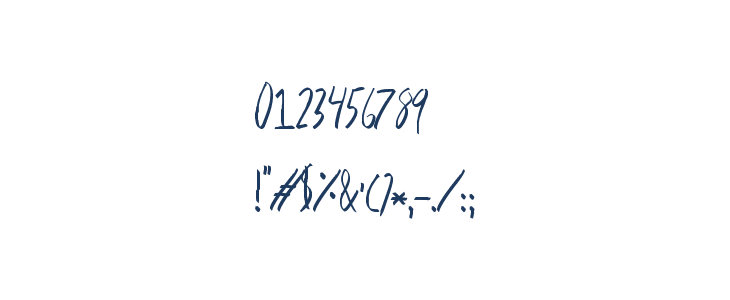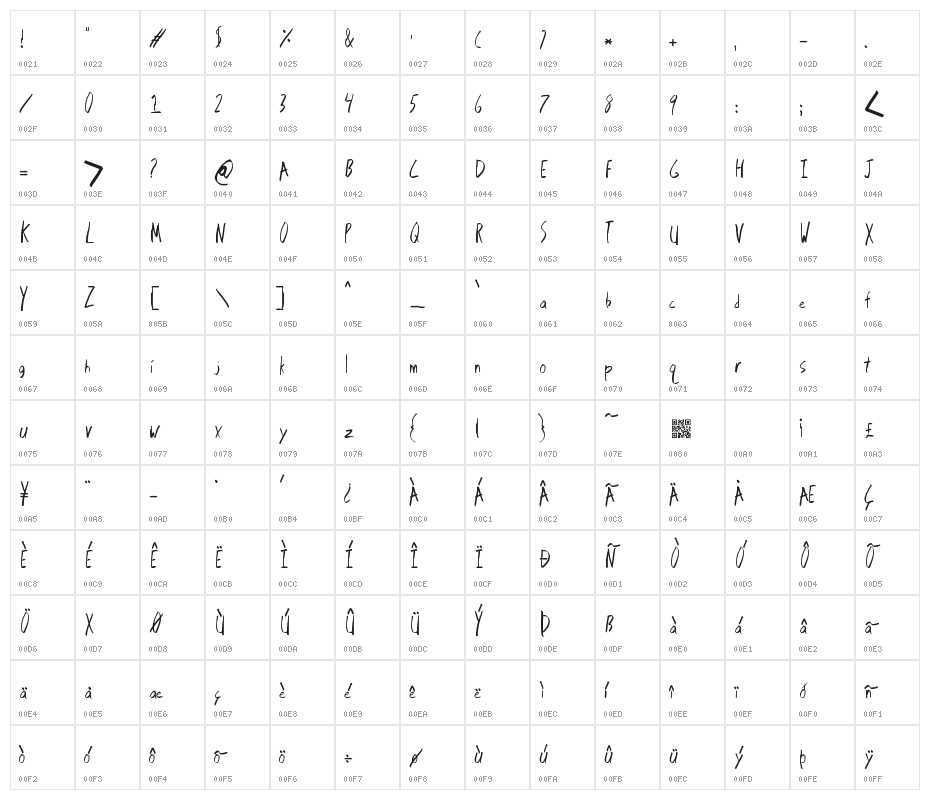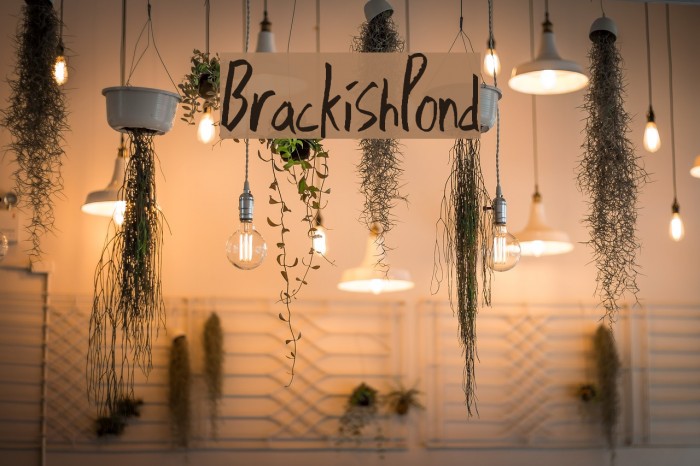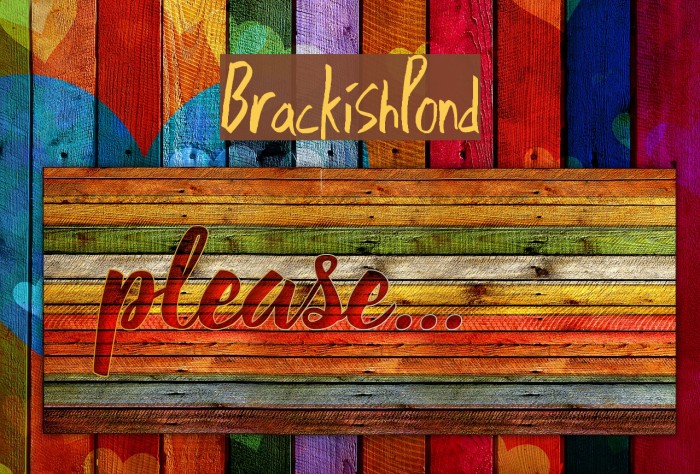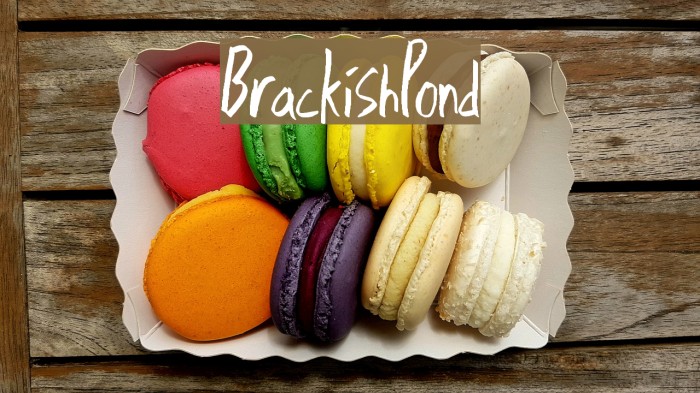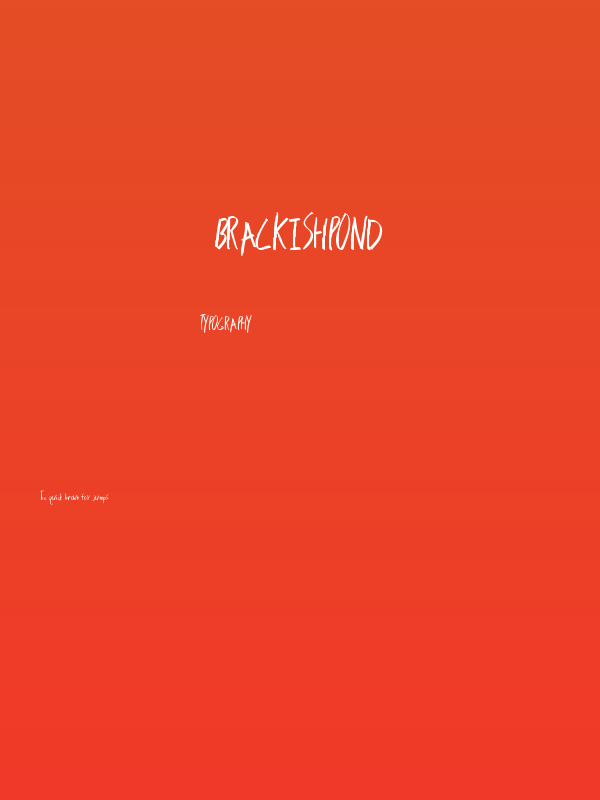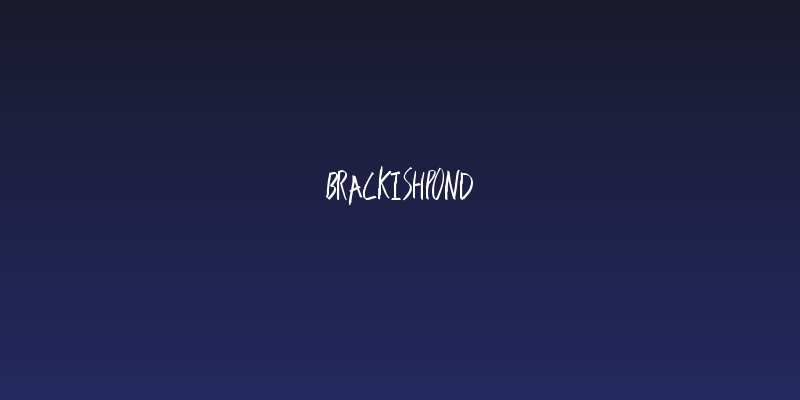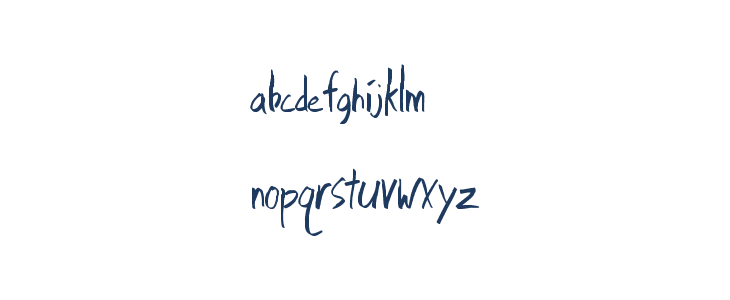
BrackishPond Font
BrackishPond Description
This font exhibits a dynamic and expressive handwritten style, characterized by irregular strokes and a playful, casual appearance. The letters are slightly slanted, adding a sense of movement and energy. The uppercase and lowercase letters maintain a consistent style, with varying stroke widths that give the font a lively and organic feel. The numerals and special characters follow the same aesthetic, ensuring a cohesive look across all text elements. This font's unique personality makes it stand out, ideal for projects that require a personal touch or a creative flair.
| Overall Style | Casual, Expressive |
| Proposed Projects | Ideal for greeting cards, invitations, personal branding, and creative projects needing a personal touch. |